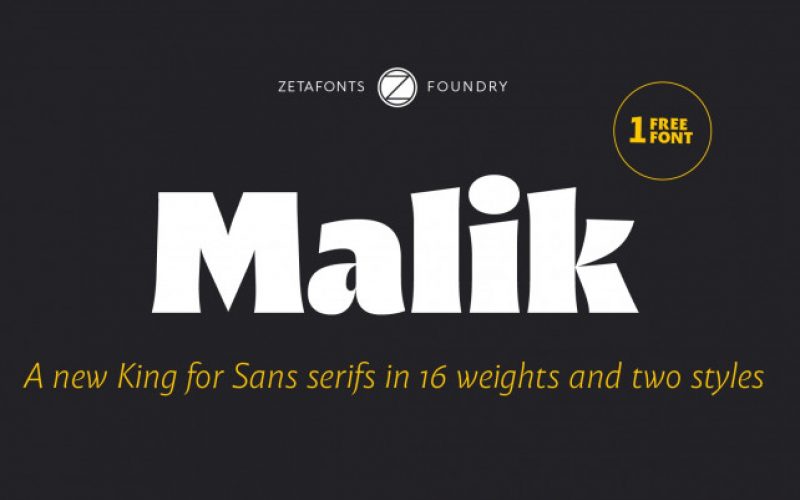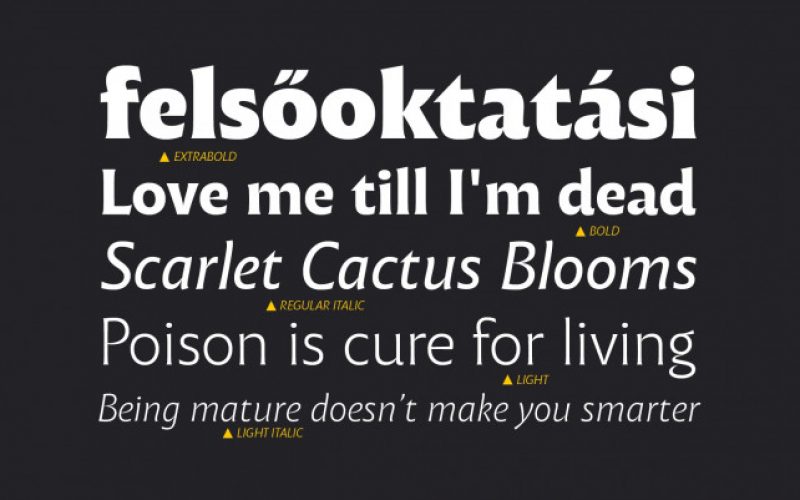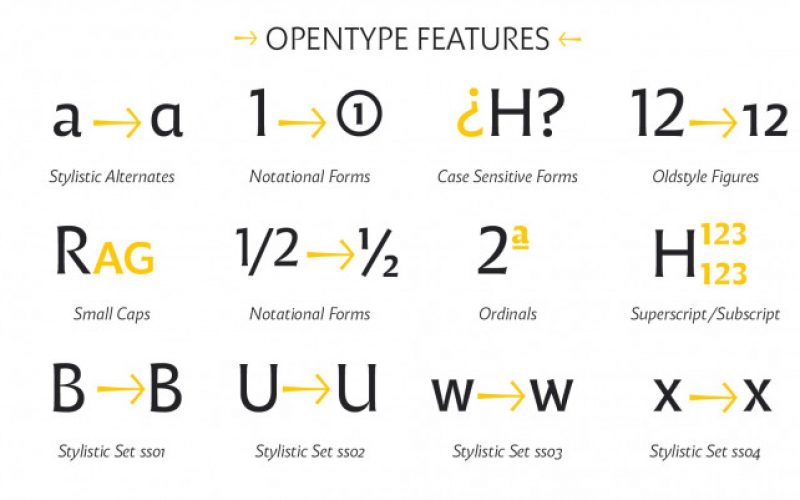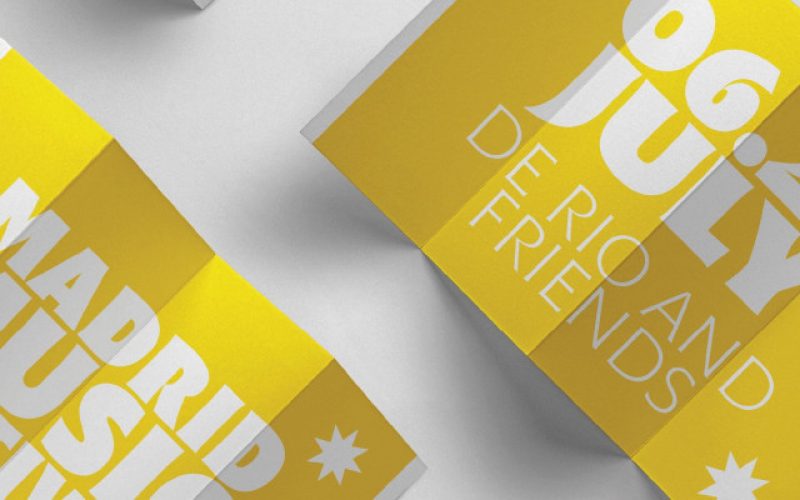
Malik Sans Serif Font
Taking its name from the arabic word for “king”, Malik is a flared sans serif typeface family designed in 2020 by Andrea Tartarelli. The designer wanted to find a way to bridge the classical letterforms of Roman Old Style typefaces with the readability of contemporary sans typefaces. This was achieved by using the so-called flared serif that emerges gradually from the stem of the letter, ending in a sharp angle. It’s something that also reminds of the peculiar shapes of the Simoncini Method, invented by italian type designer SHOW ALL